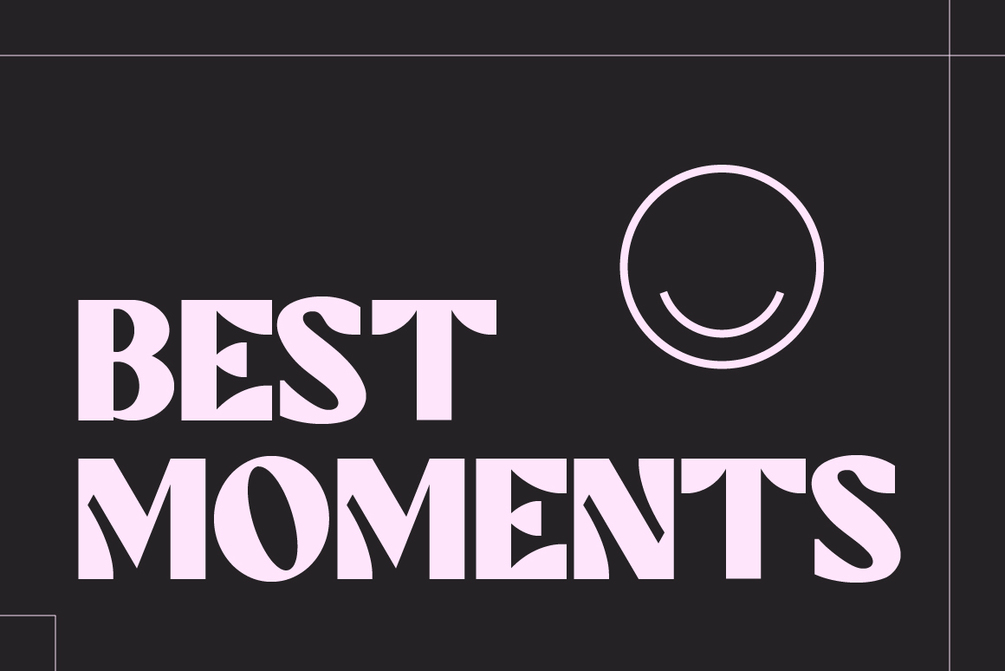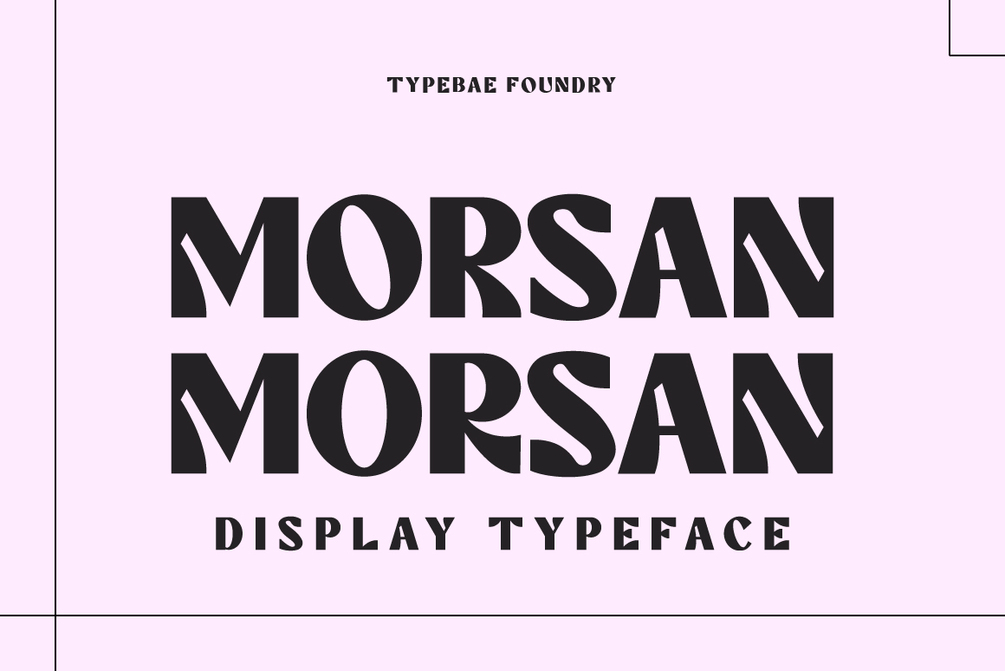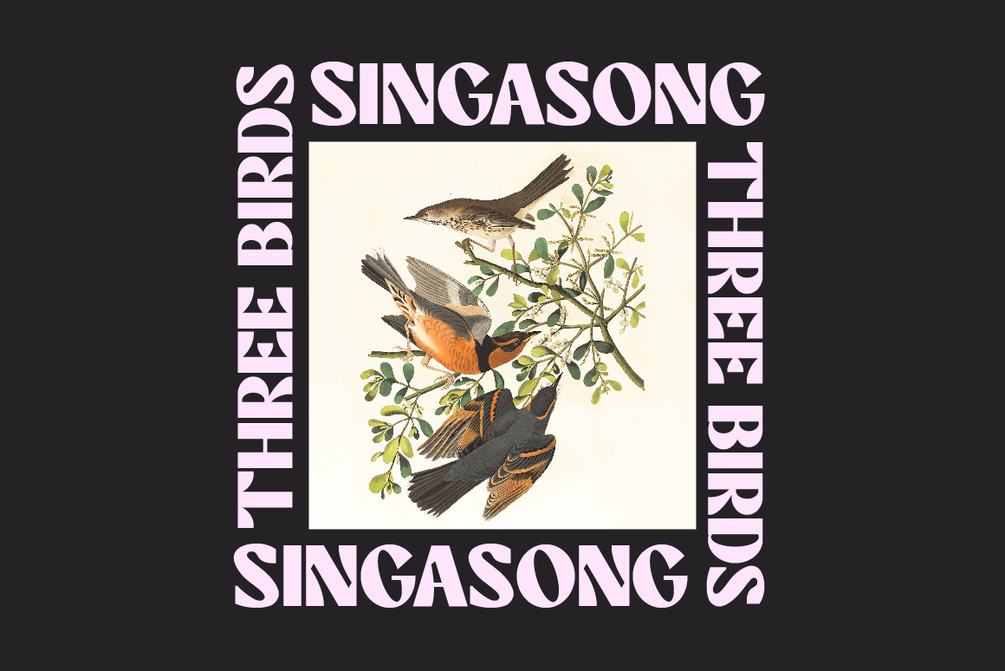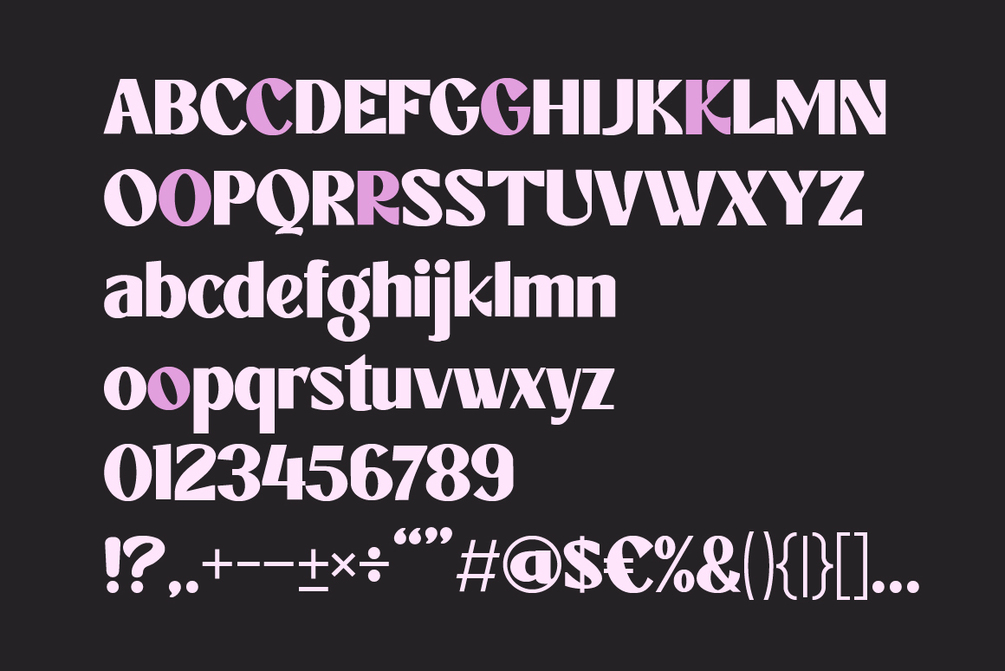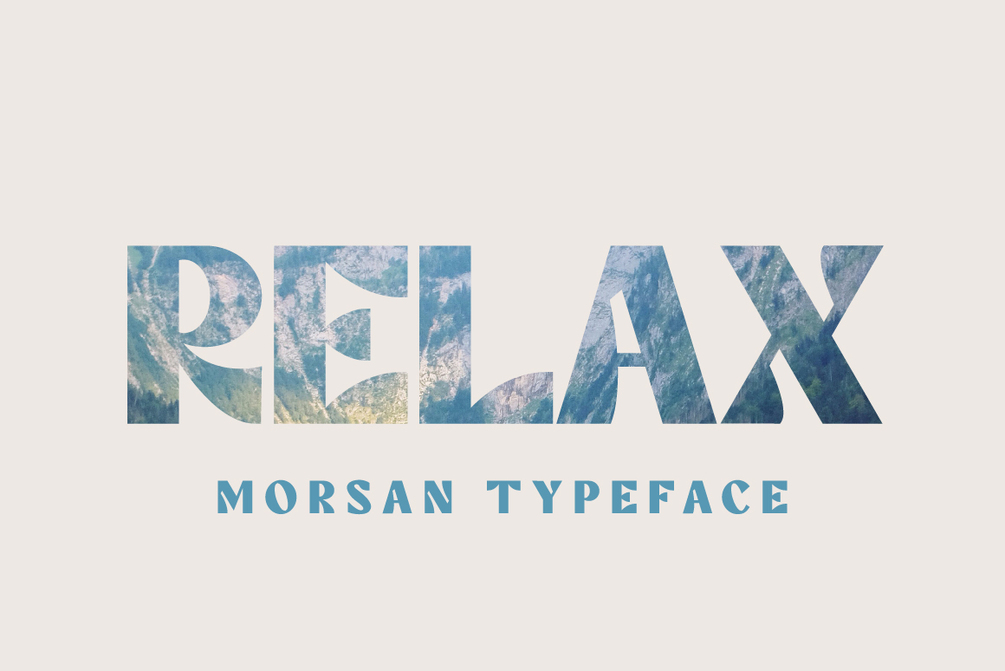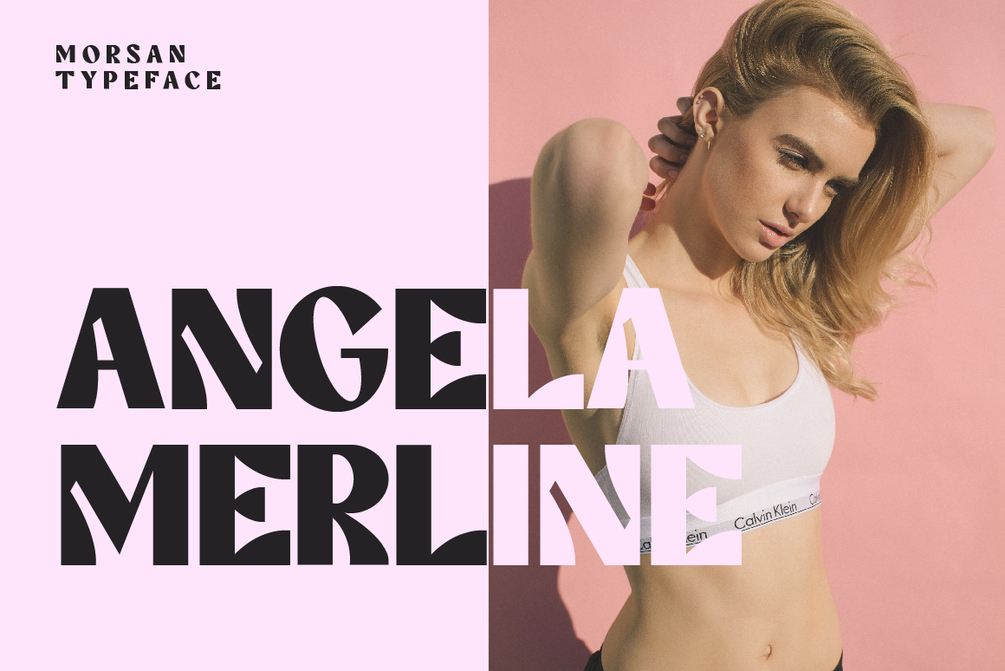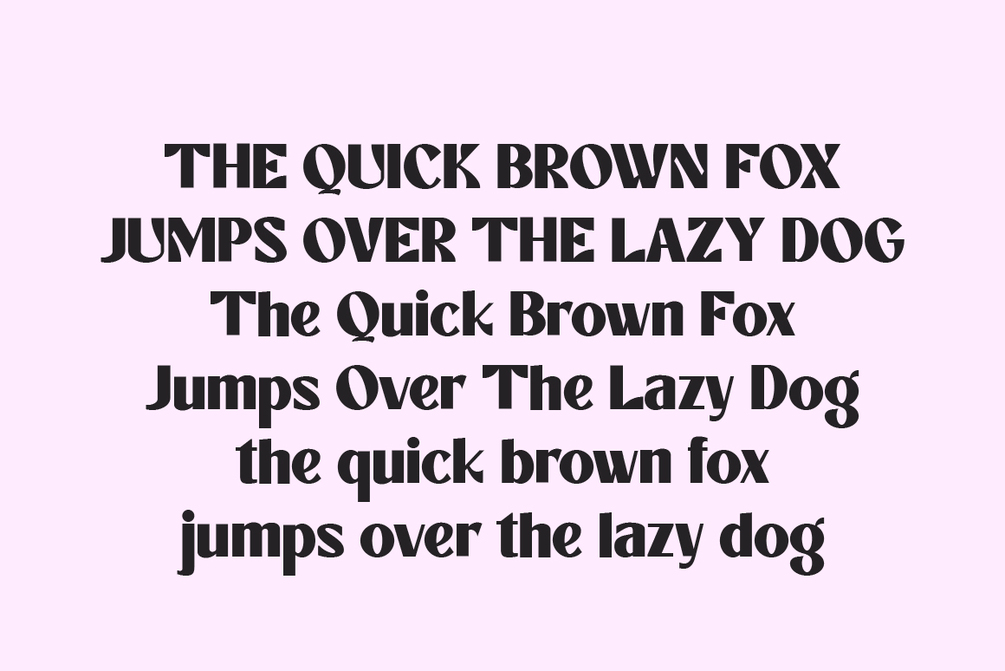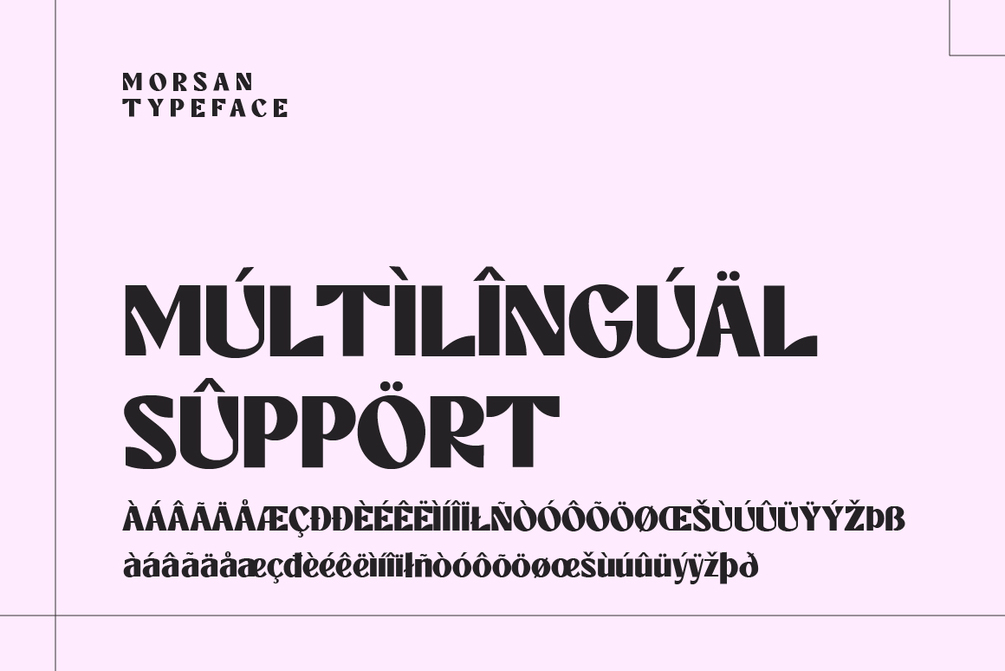
Morsan
Morsan is a psychedelic-inspired typeface that exudes retro charm, boldness, and playful vibes. Perfect for adding a dose of groovy excitement to any creative endeavor!
• Standard alphabet and punctuation
• Multilingual Support: Afrikaans, Basque, Breton, Catalan, Danish, Dutch, English, Finnish, French, Gaelic (Irish, Scots), German, Icelandic, Indonesian, Irish, Italian, Norwegian, Portuguese, Saami (Southern), Spanish, Swahili, Swedish.